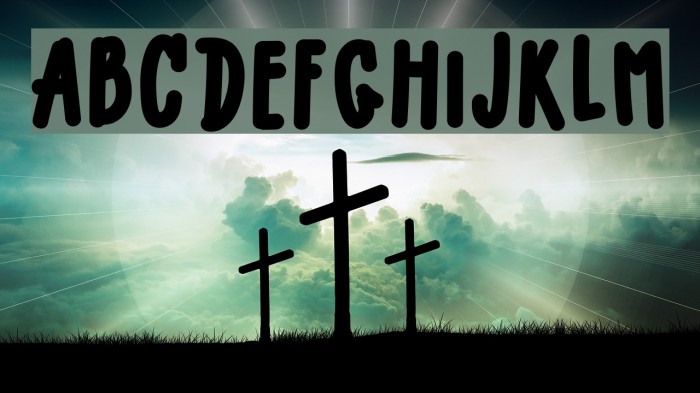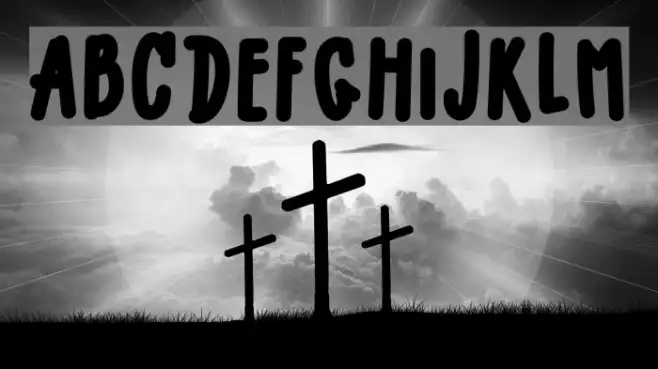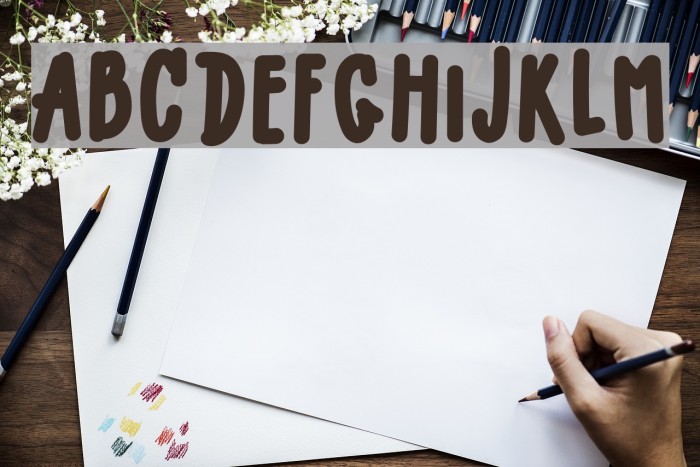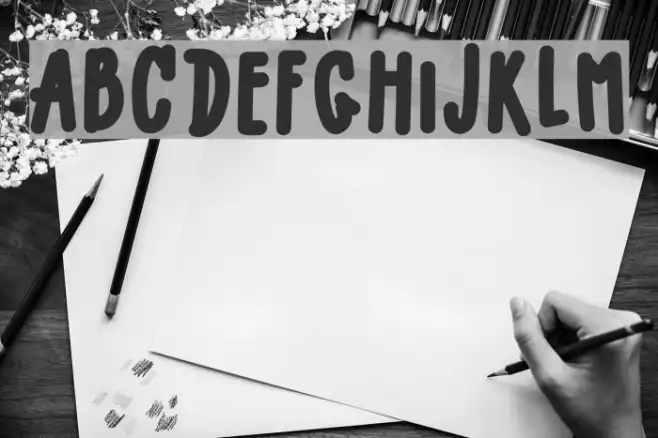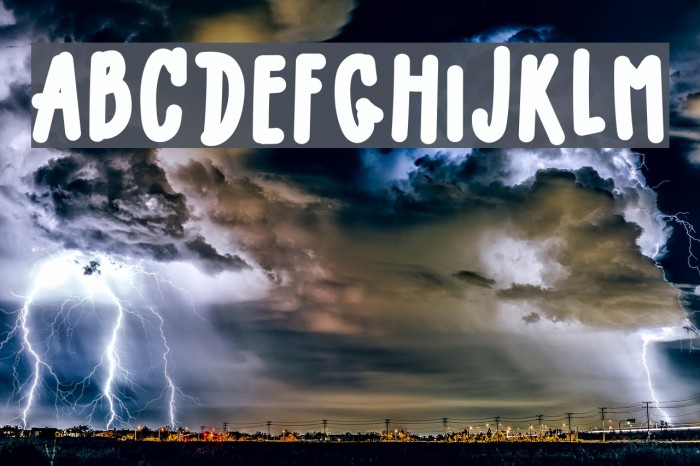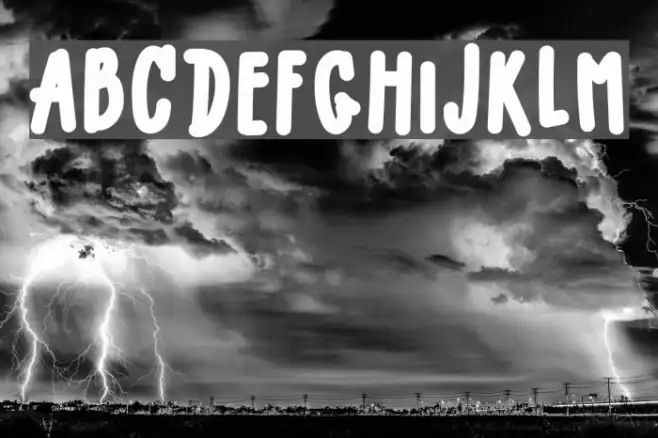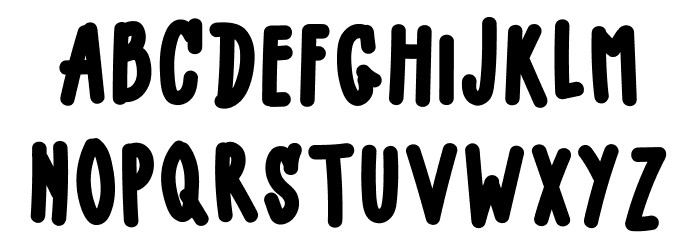
LITTLE MALLE Font
LITTLE MALLE Description
This font features a playful and bold style with rounded edges and a hand-drawn appearance. The uppercase letters are slightly condensed, giving them a compact look, while the lowercase letters maintain a consistent height and width. The numbers are clear and easy to read, with a slight curve that adds to the overall whimsical feel. Special characters are well-integrated, maintaining the same bold and rounded aesthetic. The font's design is both approachable and versatile, suitable for a variety of creative projects.
BoldYes
ItalicNo
WidthCondensed
Character SpacingMonospaced
ContrastLow
Overall StylePlayful
Use CaseHeadlines, Logos, Posters
Proposed ProjectsIdeal for children's books, playful branding, greeting cards, and creative posters.